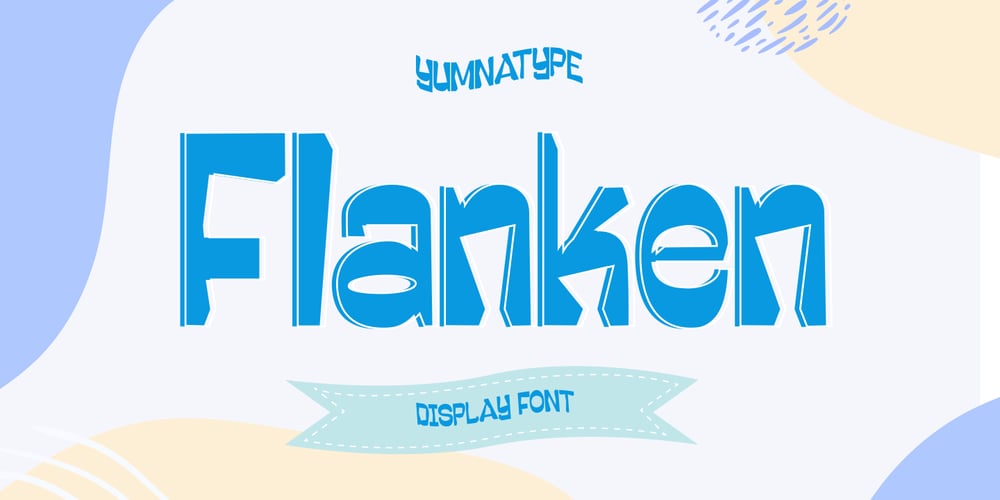
Flanken
Flanken font
Flanken Font Family was designed by Donis Miftahudin and published by Yumna Type. Flanken contains 1 styles and family package options. Flanken is a lively display font that infuses a sense of playfulness and creativity into your designs. Characterized by its not thick weight and uneven outline, this font adds a whimsical and dynamic touch to any project.Each letter in Flanken is crafted with a playful design, featuring irregular and wavy lines that give it a hand-drawn, organic feel. The lighter weight of the font ensures readability while maintaining a lighthearted and airy appearance.What sets Flanken apart is its uneven outline, which adds a sense of spontaneity and artistic flair. This irregularity makes the font perfect for projects that seek to convey a sense of fun, creativity, and informality. In addition, enjoy the features here.Features: Ligatures Multilingual Supports PUA Encoded Numerals and Punctuations Flanken fits in headlines, logos, posters, flyers, branding materials, print media, editorial layouts, and many more designs. Find out more ways to use this font by taking a look at the font preview.Thanks for purchasing our fonts. Hopefully, you have a great time using our font. Feel free to contact us anytime for further information or when you have trouble with the font. Thanks a lot and happy designing.